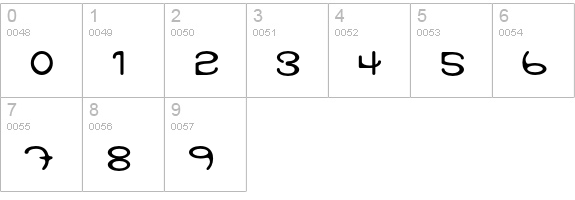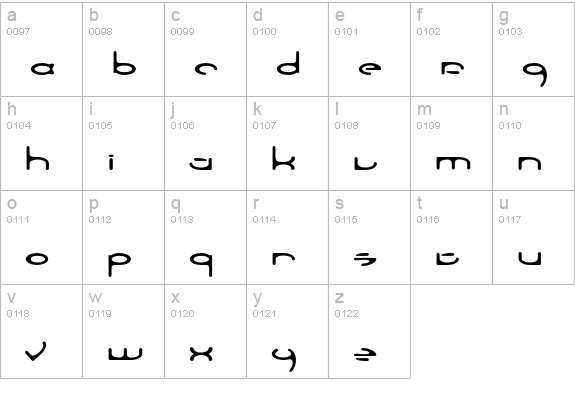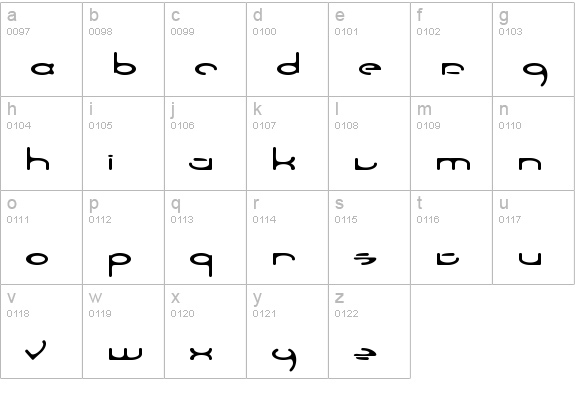
Apogee Plain Font Details
Apogee Plain is a modern and versatile sans-serif font that exudes simplicity and elegance. Its clean lines and balanced proportions make it suitable for a wide range of design projects, from branding to editorial design. The Apogee Plain font is designed with readability in mind, making it perfect for both print and digital applications. The best part about Apogee Plain font is that it is available for free download at FontsMarket.com. This means you can easily access this high-quality font without breaking the bank. Whether you're a professional designer or a hobbyist looking to elevate your projects, Apogee Plain font is a fantastic choice that won't cost you a penny. Download it today and add a touch of sophistication to your designs!